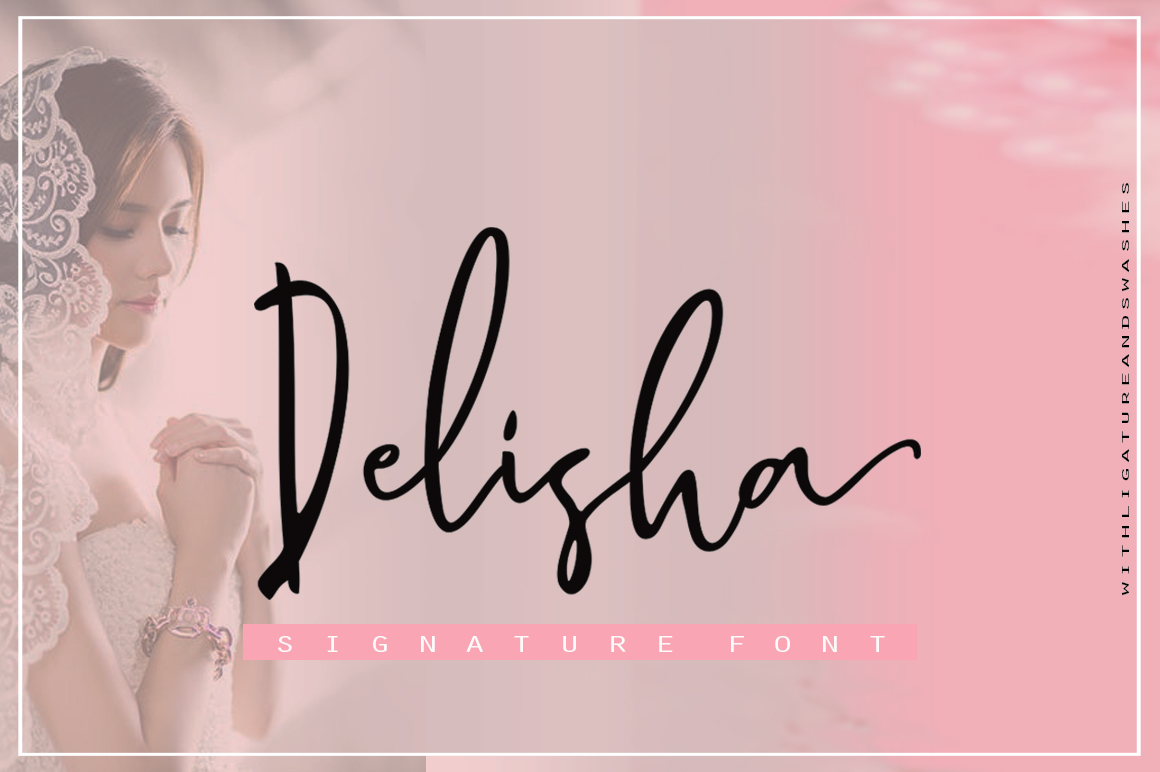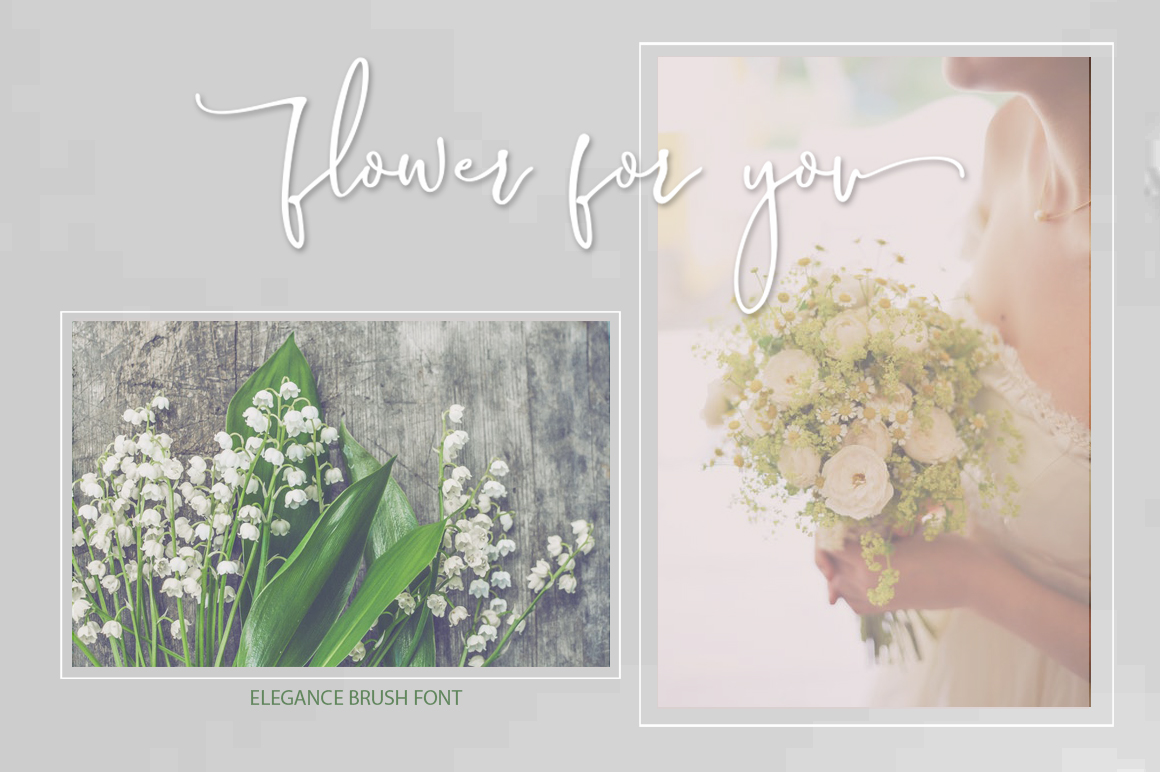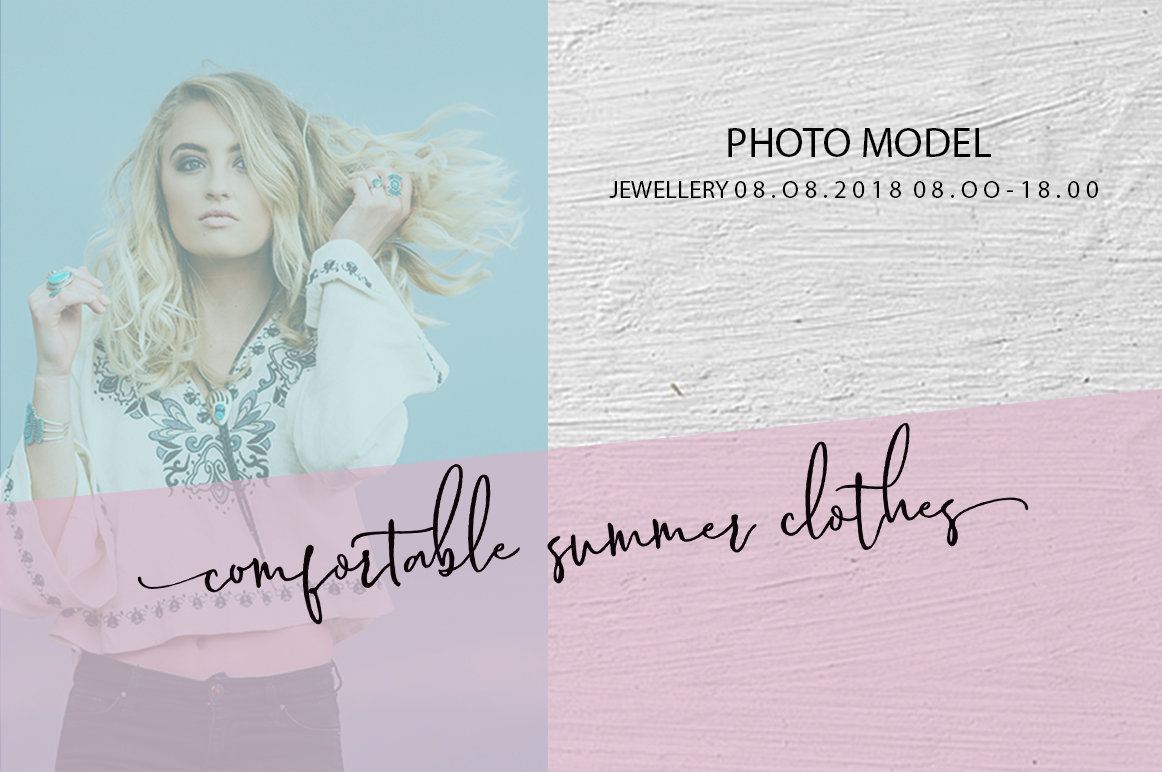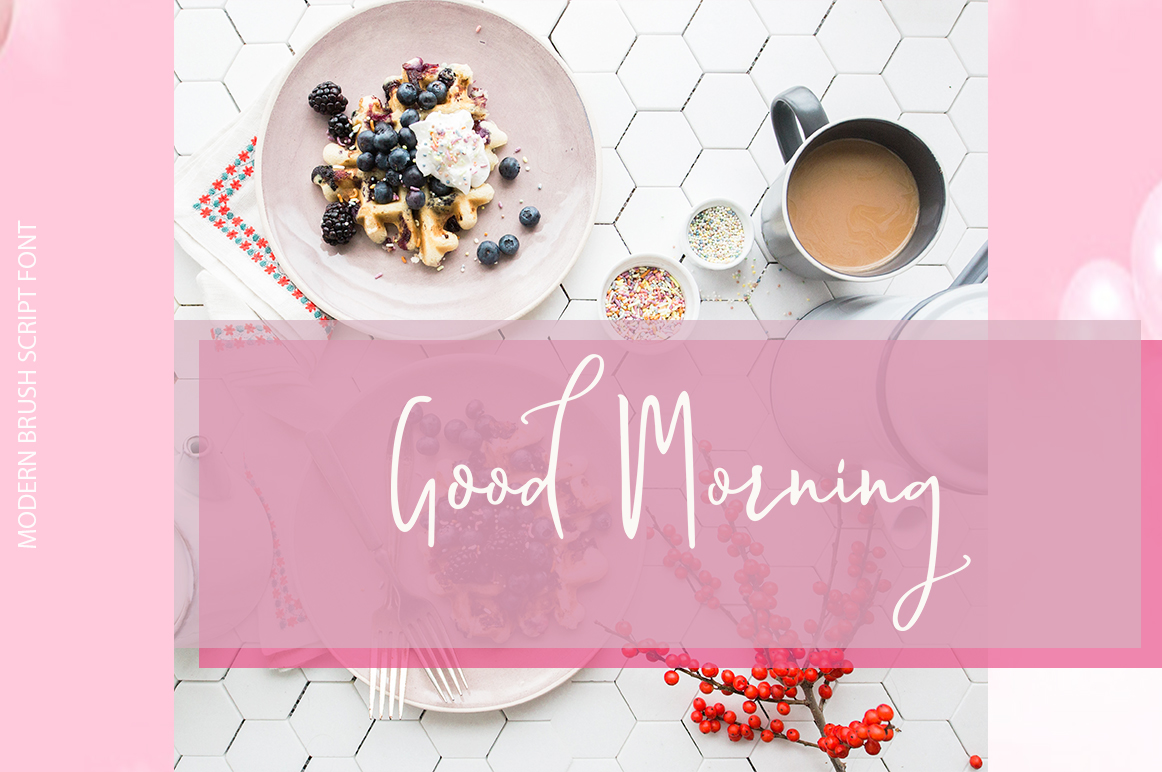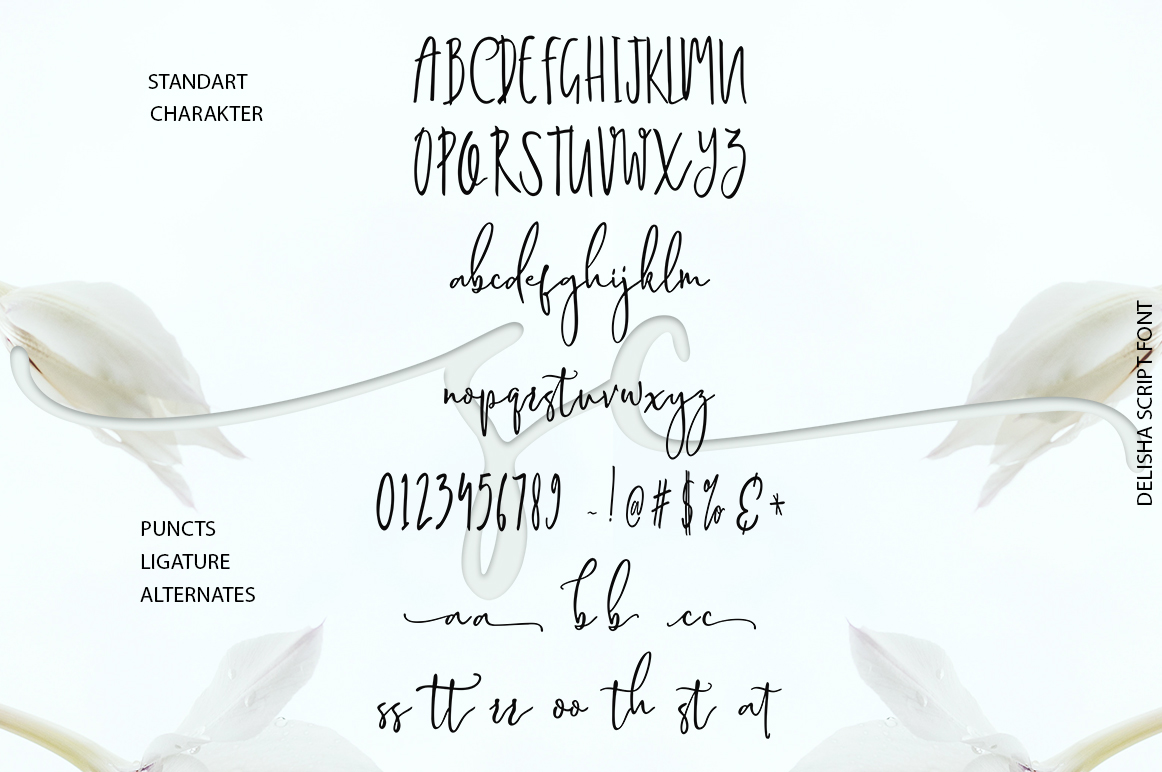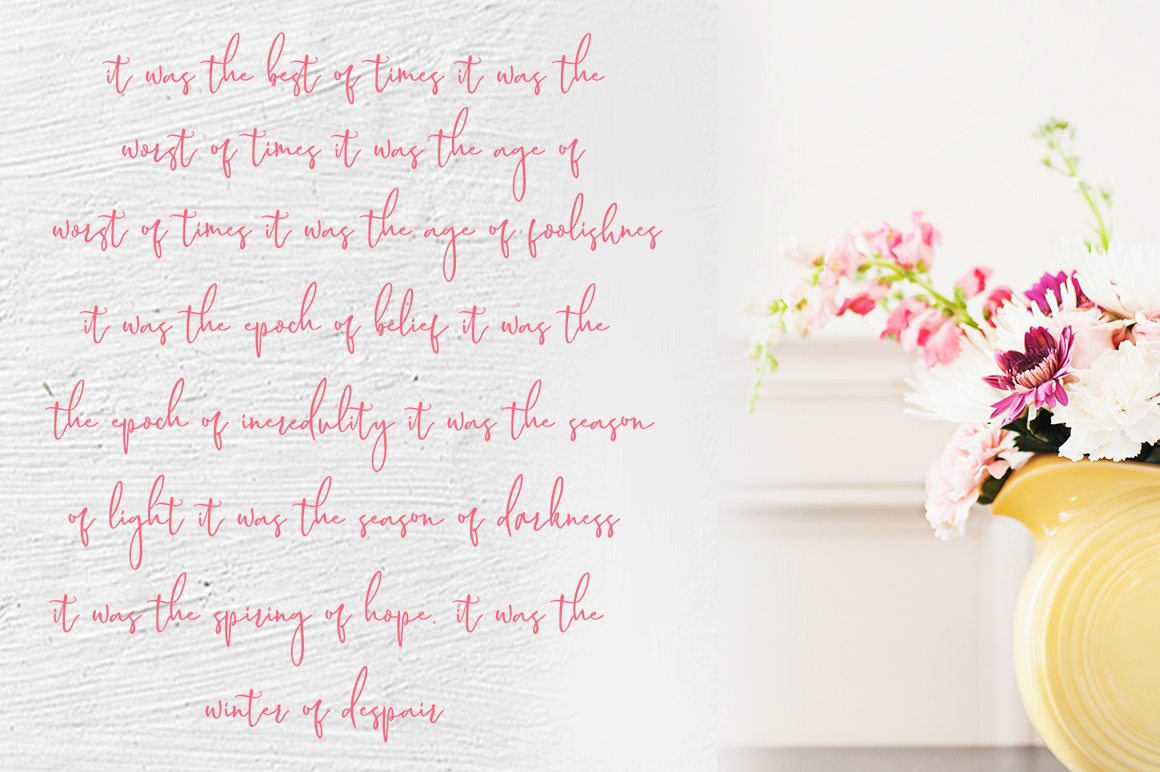
Delisha Font
About Delisha Font
Delisha is a beautiful modern script font, perfect for giving your editorial or fashion based designs a stylish feel. With a feminine and irregular baseline, this font looks great across a wide range of project types.